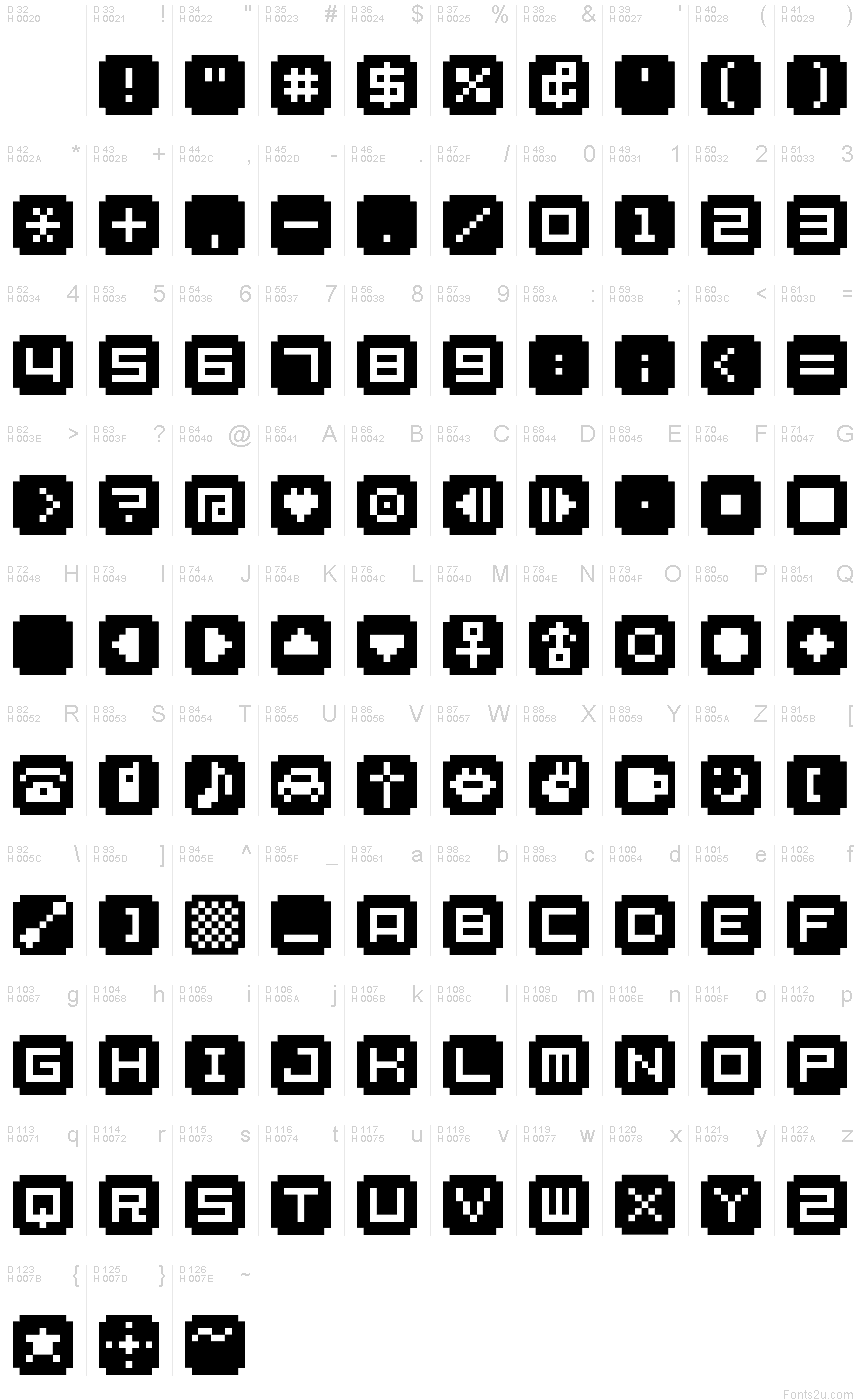
BM stamp A9
BM Stamp A9 font by BitmapMania / COOZ is a free pixel bitmap typeface that hits like a chunky rubber stamp on screen. Each character is built from tight white squares locked into a bold black frame, giving text a crisp, inky edge that feels both arcade-ready and industrial. Sitting inside the BM Stamp family, it delivers a strong grid rhythm that stays sharp at small sizes and punches hard in short phrases and titles.
Using BM Stamp A9, you get a ready-made voice for retro games, scoreboards, overlays, glitchy posters, tech merch, UI buttons, and stream graphics. This free font shines when you keep words compact and let the blocky borders form patterns across the line. Pair it with a clean, thin sans serif for body text to contrast its heavy pixel texture and keep layouts readable while the stamped letterforms do the shouting.